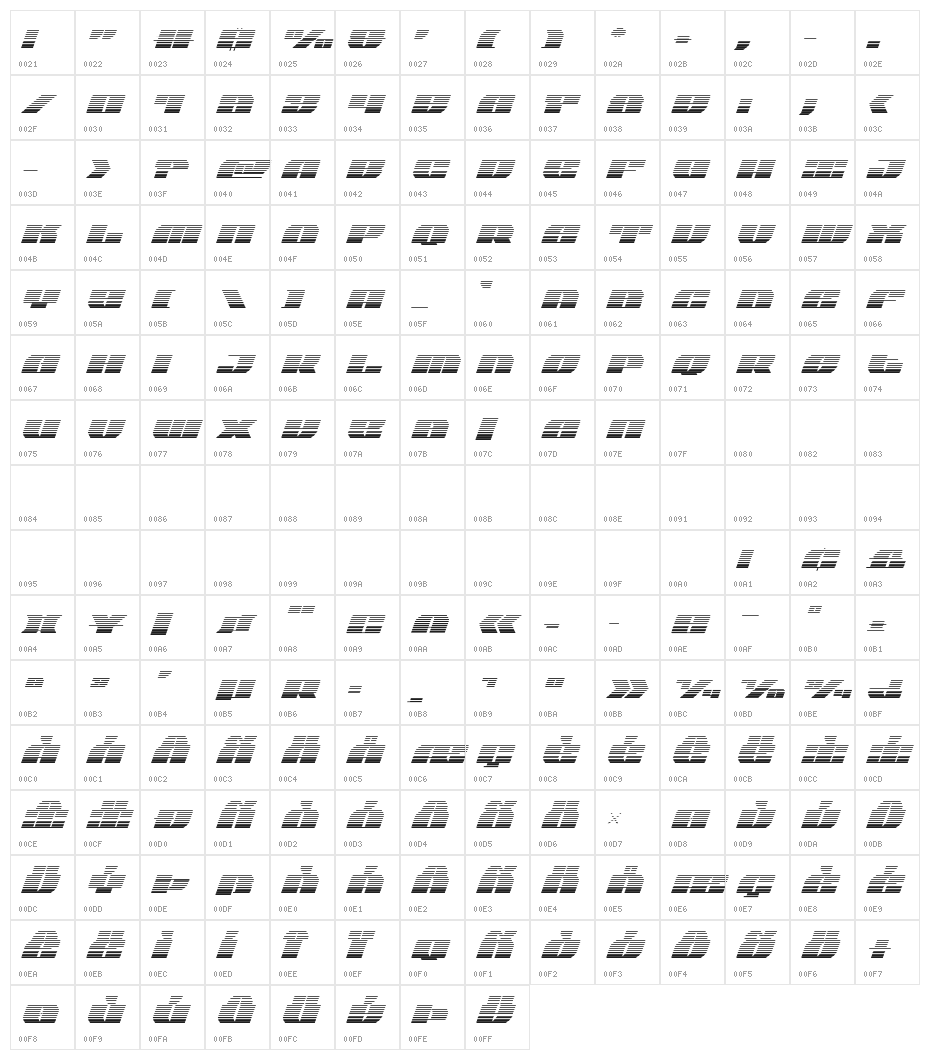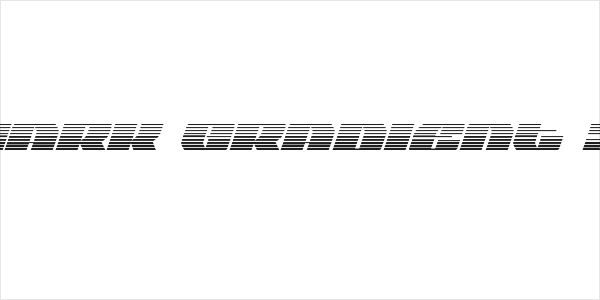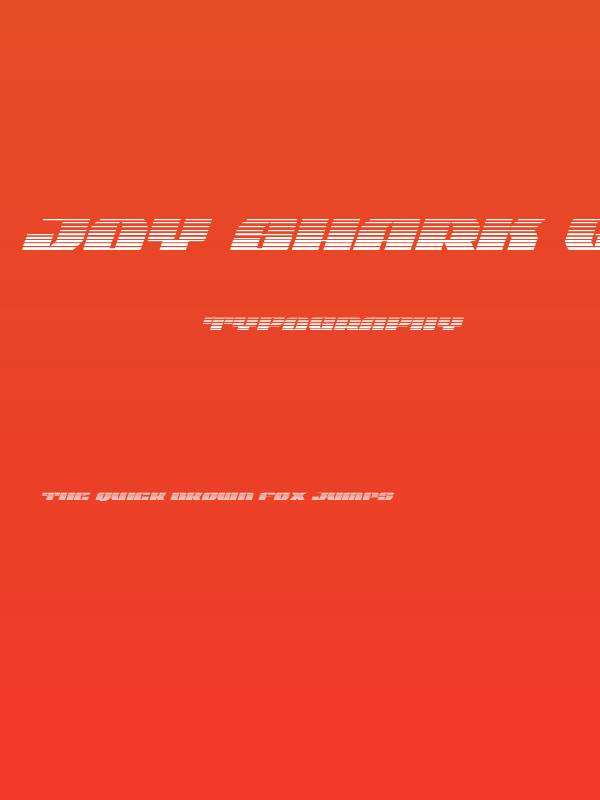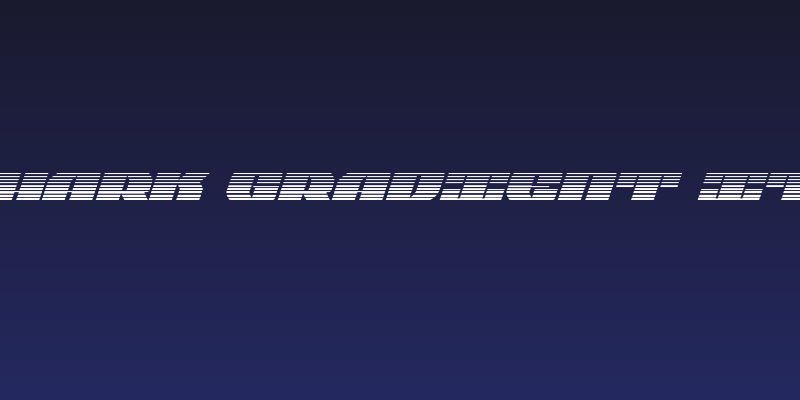
Joy Shark Gradient Italic Font
Joy Shark Gradient Italic Description
This font features a unique, futuristic design with a distinct gradient effect created by horizontal lines that form each character. The italicized style adds a dynamic and forward-leaning appearance, enhancing its modern aesthetic. The characters are bold and wide, with a consistent stroke thickness that maintains readability despite the intricate line pattern. The overall look is sleek and innovative, making it suitable for projects that require a contemporary and eye-catching typeface.
| Proposed Projects | Ideal for tech-related branding, modern posters, sci-fi themed events, and digital media graphics. |